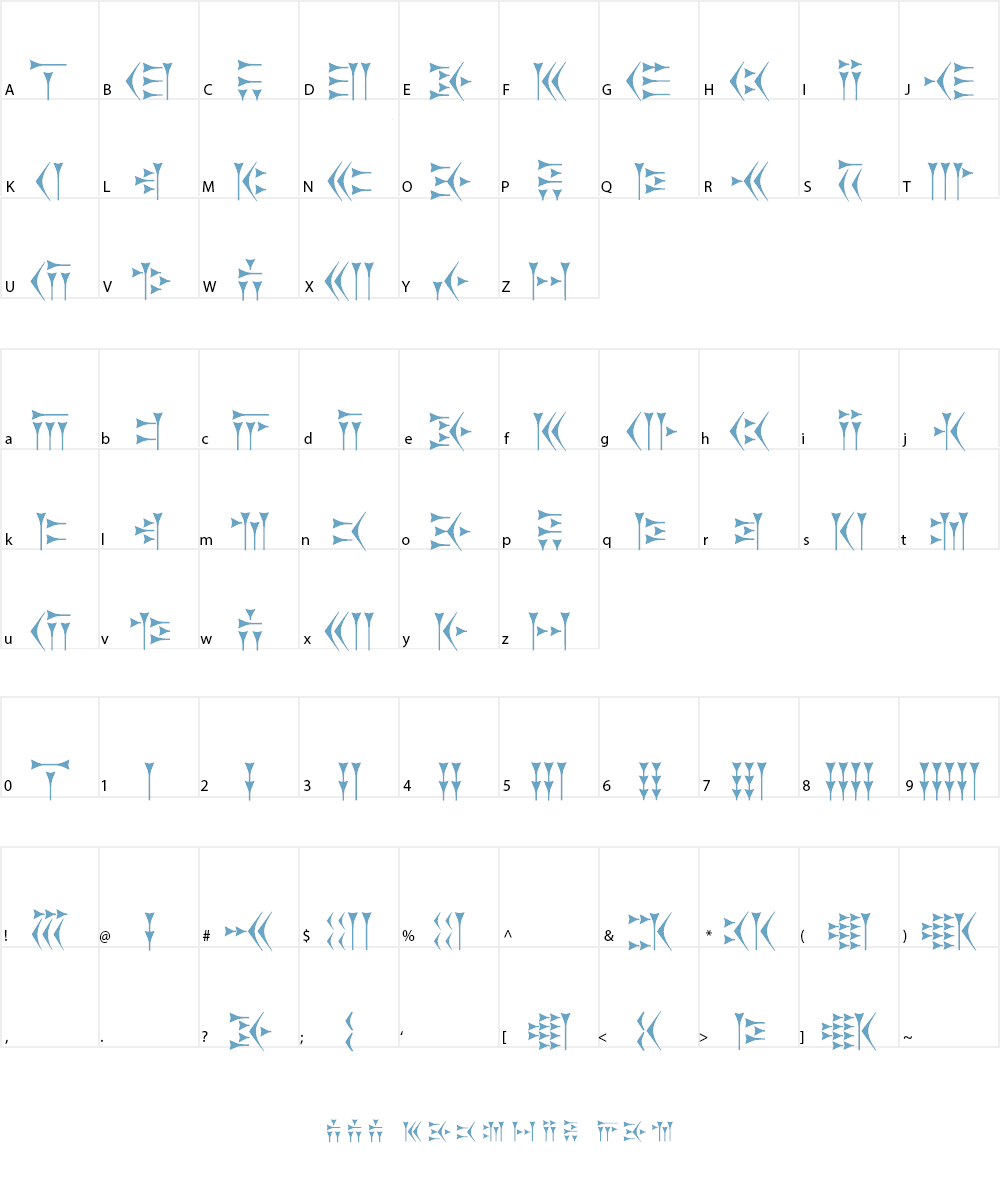
Developed with the help of Mr. Keyvan Mahmoudi, from the University of Teheran, the glyphs are allocated over very convenient keys, but also works for Unicode. This font includes every known glyph for this ancient inscript. This is a free non-commercial font and should not be selled by any means. For more details on how to use the font, corrections, comissions, permissions or suggestions, contact me: